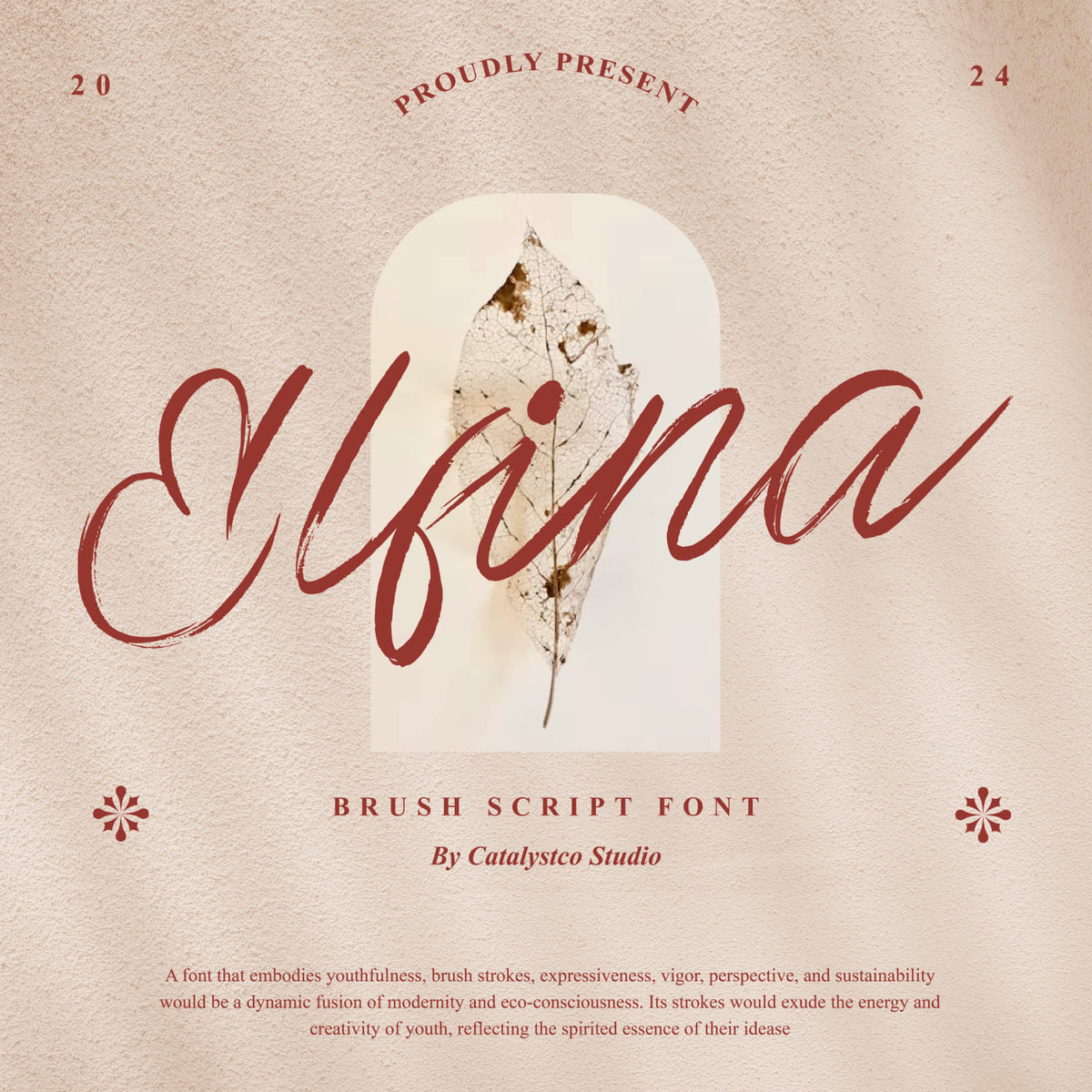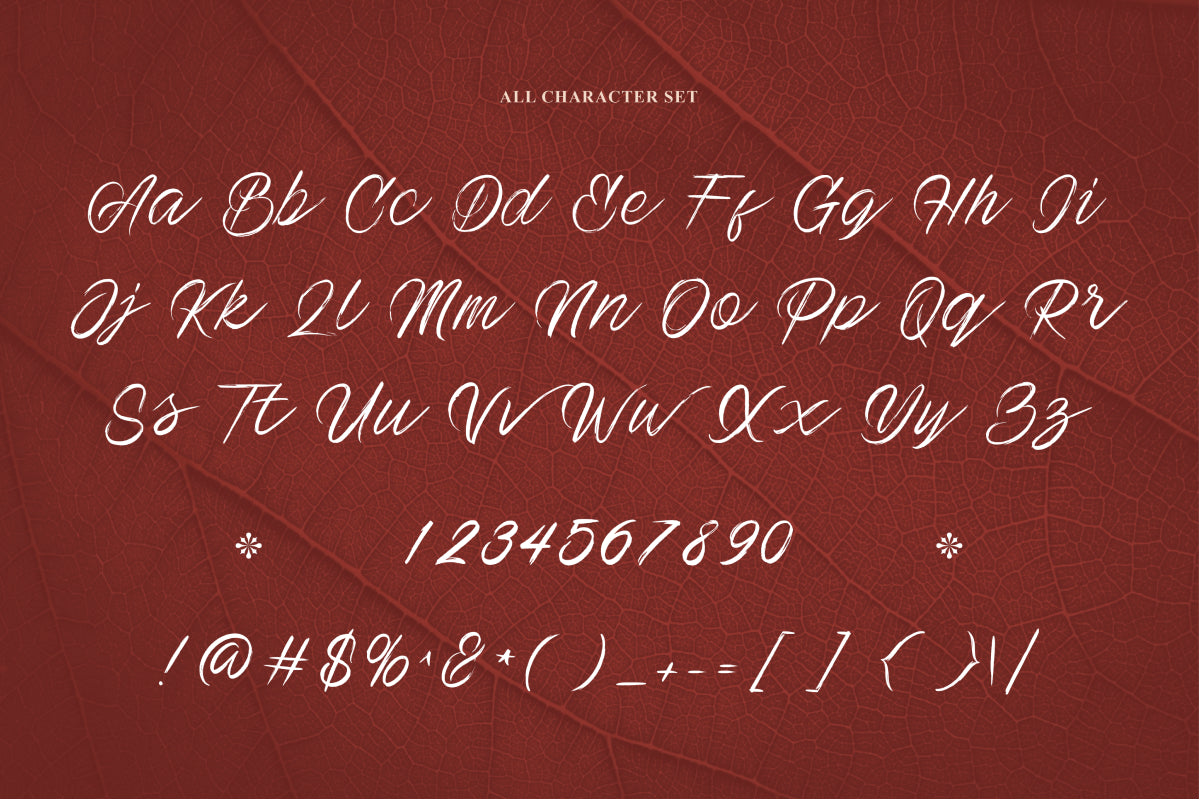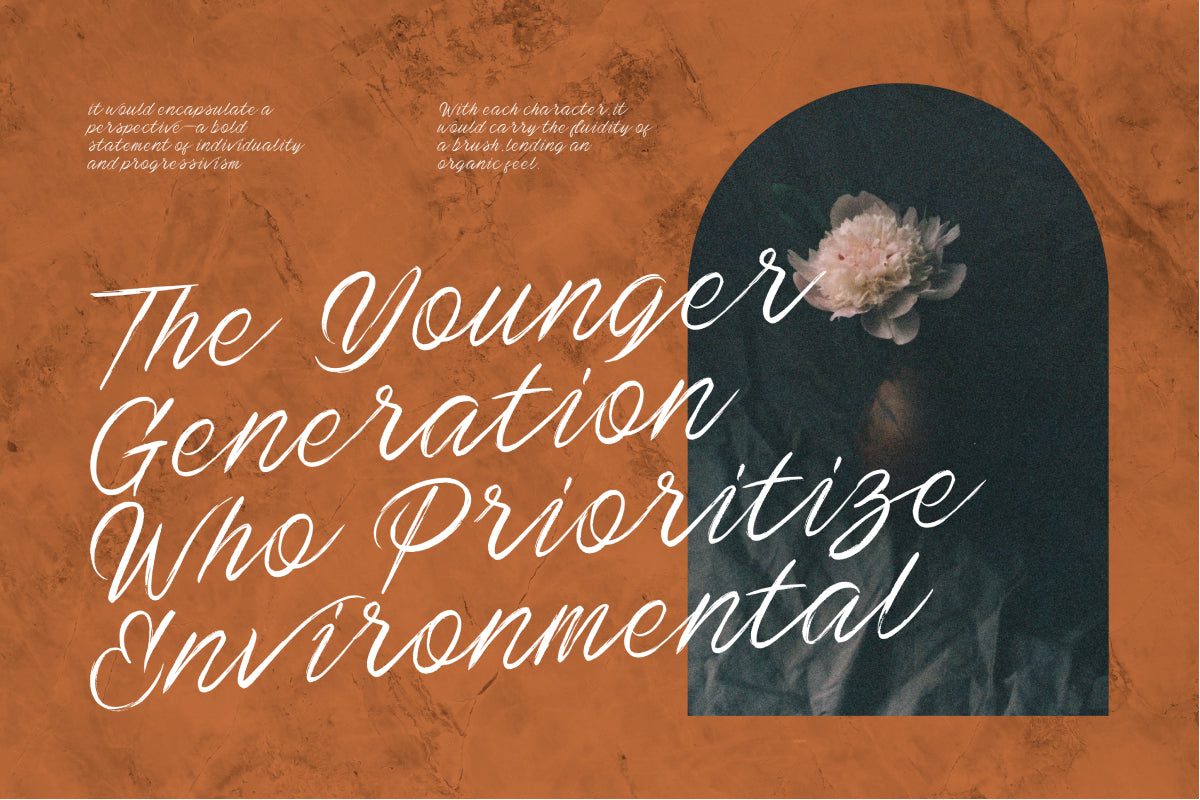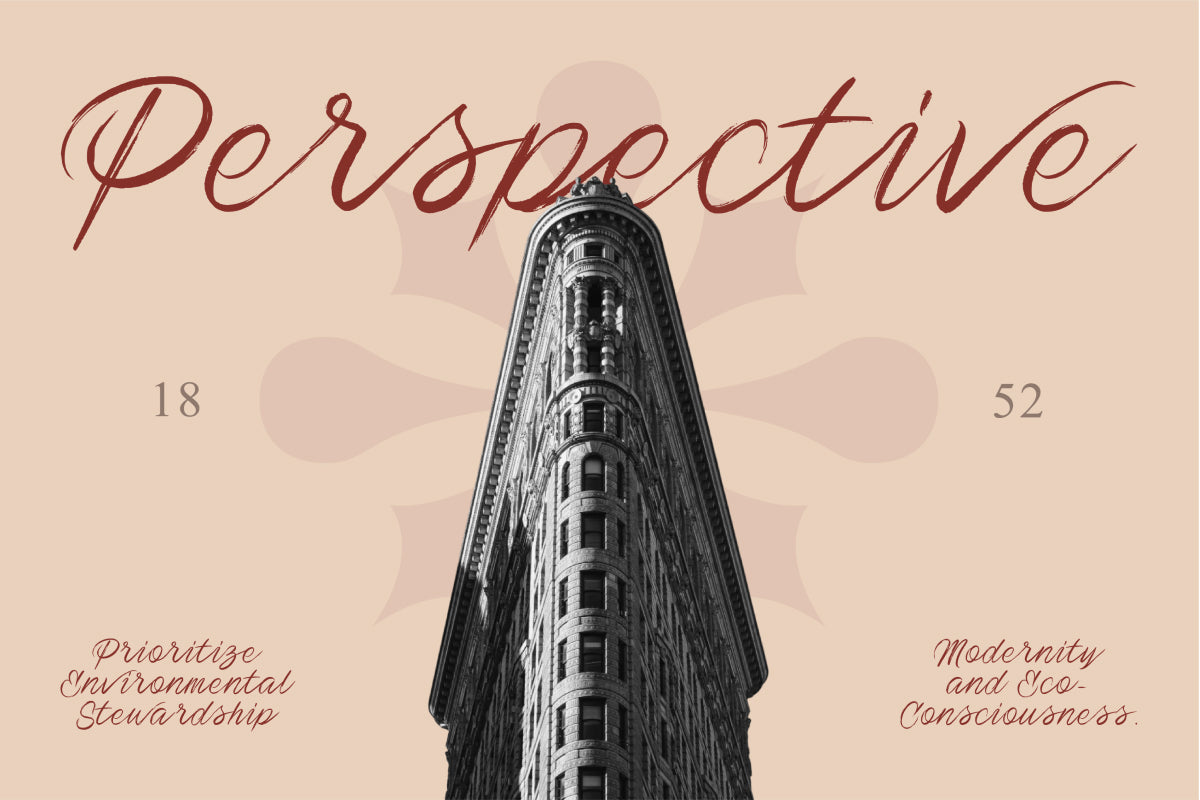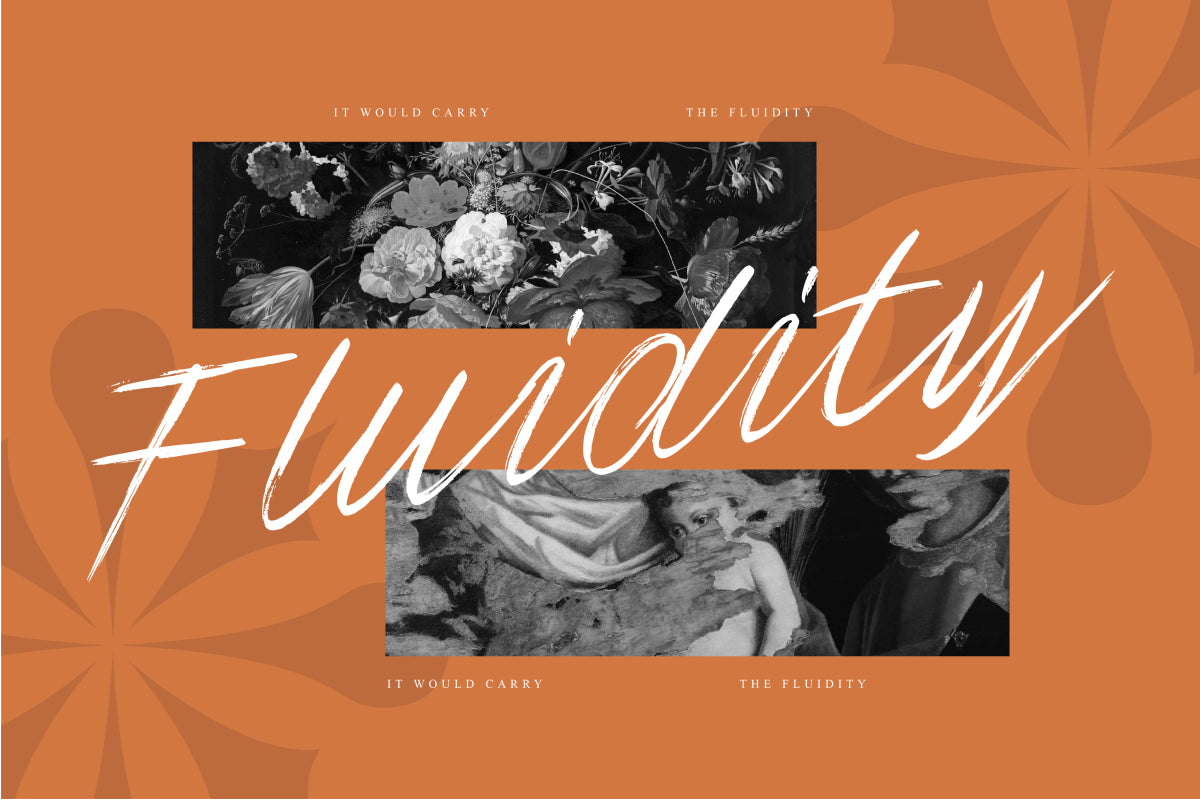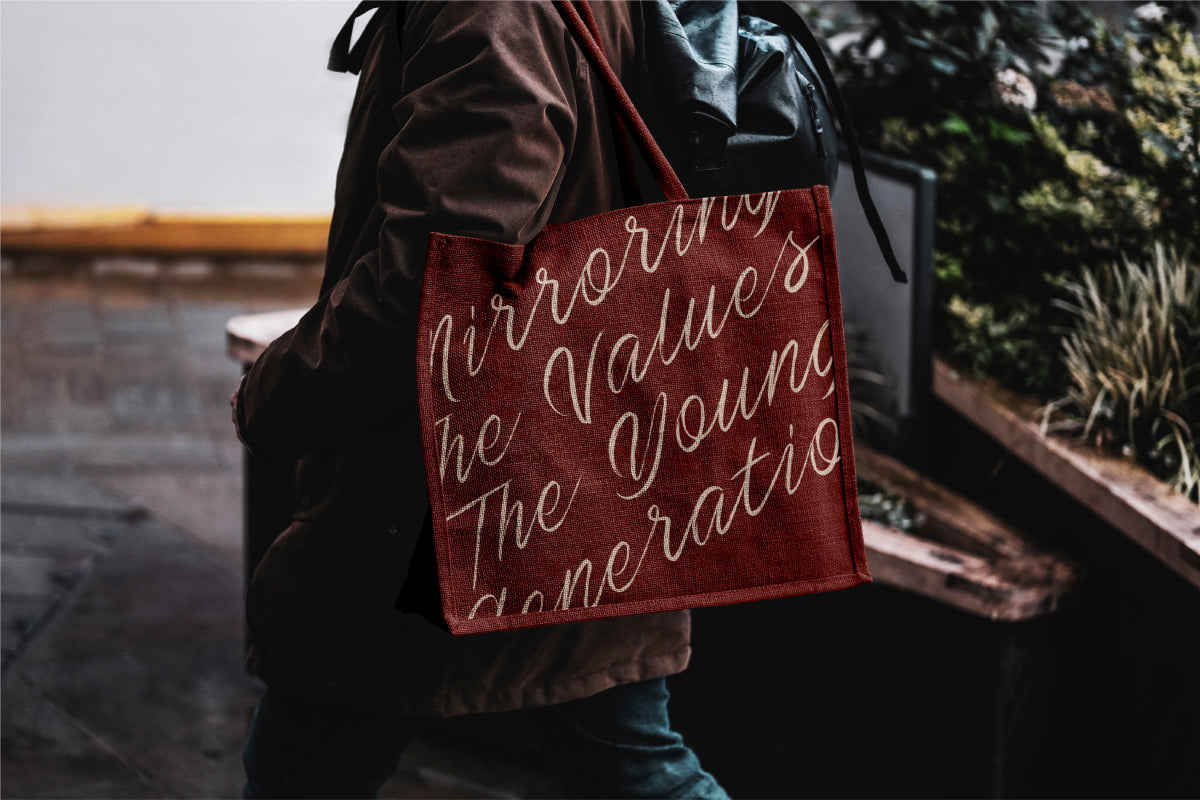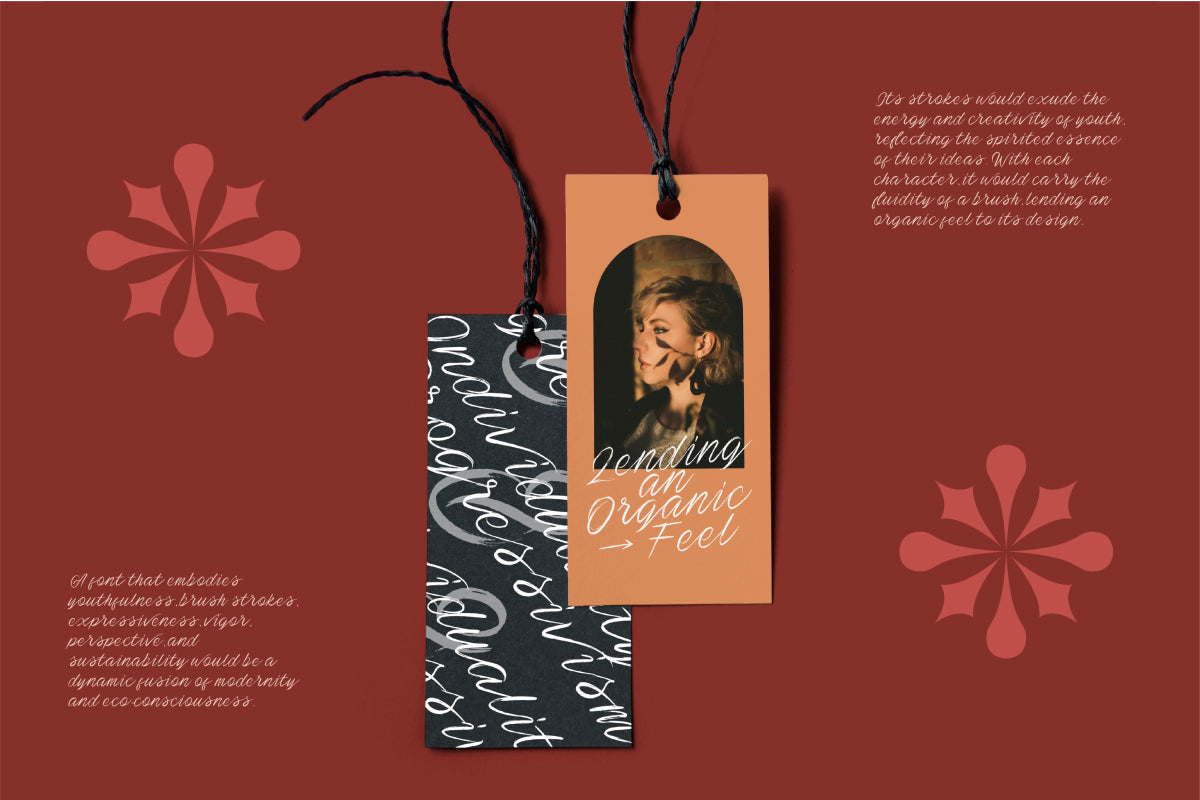
Elfina Brush Script Font
Elfina Brush Script Font is an expressive brush script font with flowing handwritten letterforms, energetic strokes, and an organic painted texture. Its characters feature sweeping curves, elongated connections, varied stroke thickness, and visible brush-like edges that give the lettering a naturally handcrafted appearance. The combination of elegant movement and raw brush texture creates a youthful, artistic personality while keeping the overall lettering visually expressive and distinctive.
Relevance and Use Case is perfect for projects that need expressive handwritten typography with an organic brush-painted character. Its flowing strokes and textured edges make it suitable for fashion branding, lifestyle campaigns, beauty projects, creative studio identities, posters, apparel graphics, greeting cards, invitations, product packaging, editorial covers, social media artwork, quotes, logos, and personal branding. It works particularly well when the typography needs to feel energetic, artistic, personal, and handcrafted rather than perfectly geometric or formal.
Elfina Brush Script Font is a handwritten brush script typeface featuring varied stroke widths and textured edges, available in TTF, OTF, and WOFF formats. It includes uppercase and lowercase characters, ligatures, alternates, numerals, and punctuation.